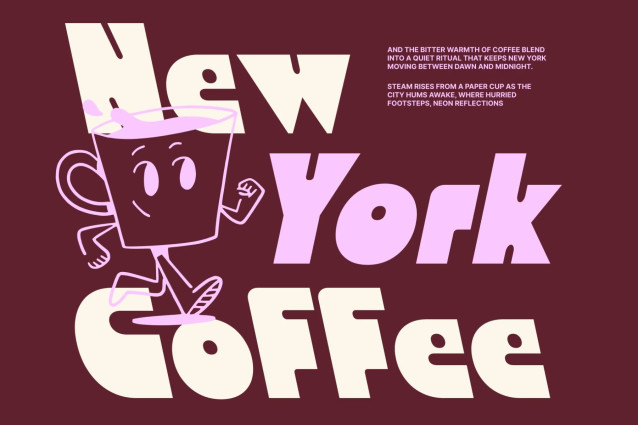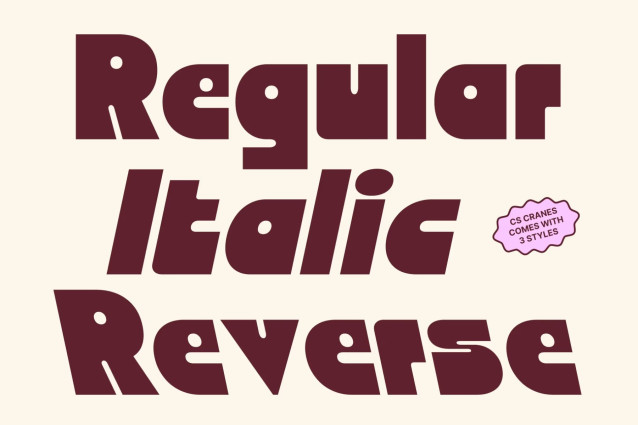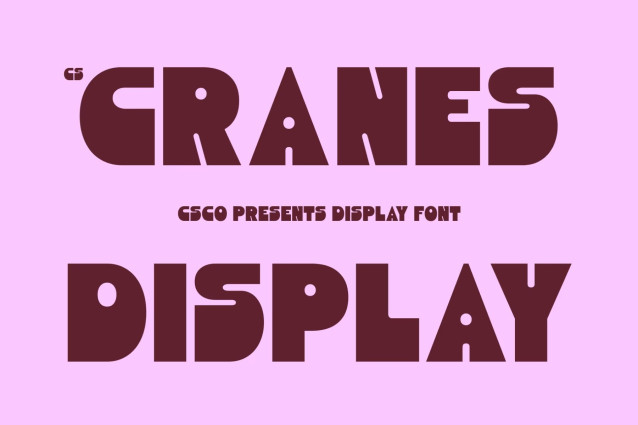
CS Cranes – Bold Display Font: Where Chunky Geometry Meets Vintage Playfulness
Bold Display Font with Chunky Geometric Letterforms
This is a bold display font featuring chunky geometric letterforms that instantly capture attention. Its solid construction creates a strong visual presence, while the balanced proportions ensure excellent readability in large-format typography. Designed to be both bold and approachable, it brings energy and personality to every composition.
Playful Cutout Details with Vintage Charm
Distinctive cut out details give this font’s unique character, adding visual rhythm and playful expression to each letter. Combined with its nostalgic vintage charm, these creative elements evoke the spirit of retro signage and classic advertising while maintaining a clean, contemporary finish. The result is typography that feels fun, memorable, and full of character.